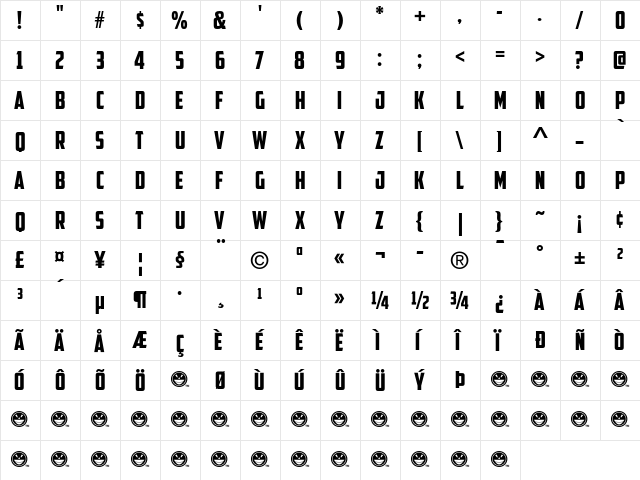
American Captain Regular
Design Context for American Captain Typeface
American Captain offers clean, dependable letterforms without strong stylistic allegiance, making it a practical choice for designers who need flexibility.
Pro Tip: Use American Captain in both headline and body roles to test its range before committing to a single application.